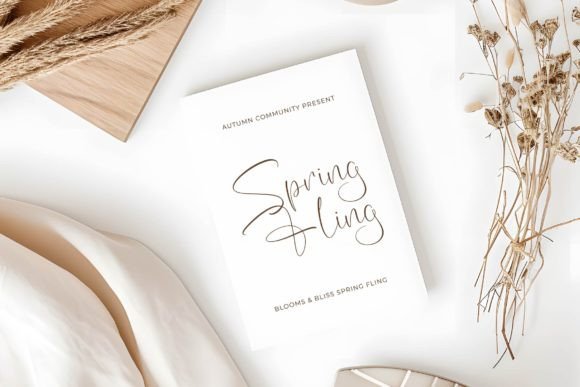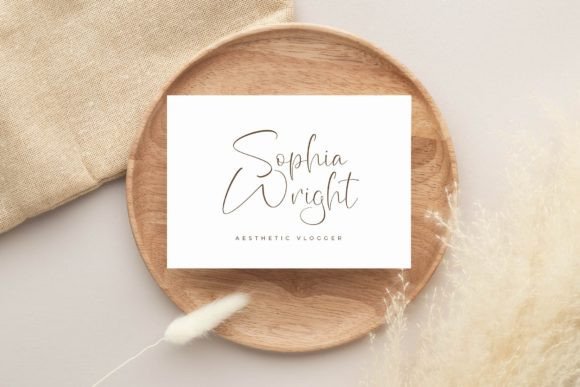
Radiant Sunshine Font
Radiant Sunshine – Modern Freestyle Script , from Letterena, is a Luxury Script font, suitable for any projects such as: logos, branding projects, homeware designs, product packaging, mugs, quotes, posters, shopping bags, t-shirts, book covers, name card, invitation cards, greeting cards, label, photography, watermark, special events, and all your other luxury and beautiful projects that need a Luxury Script taste.